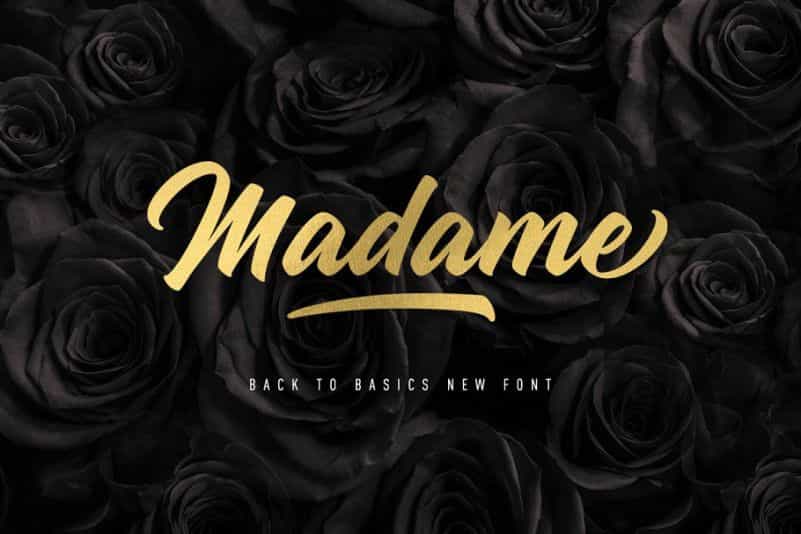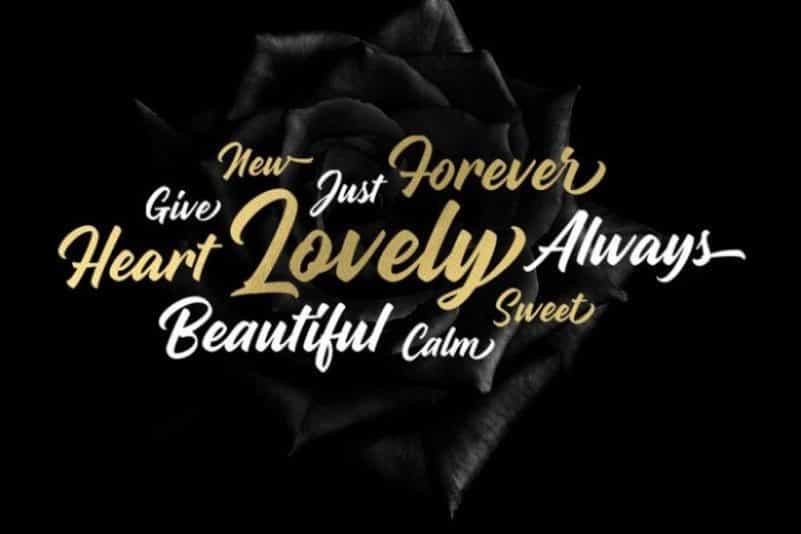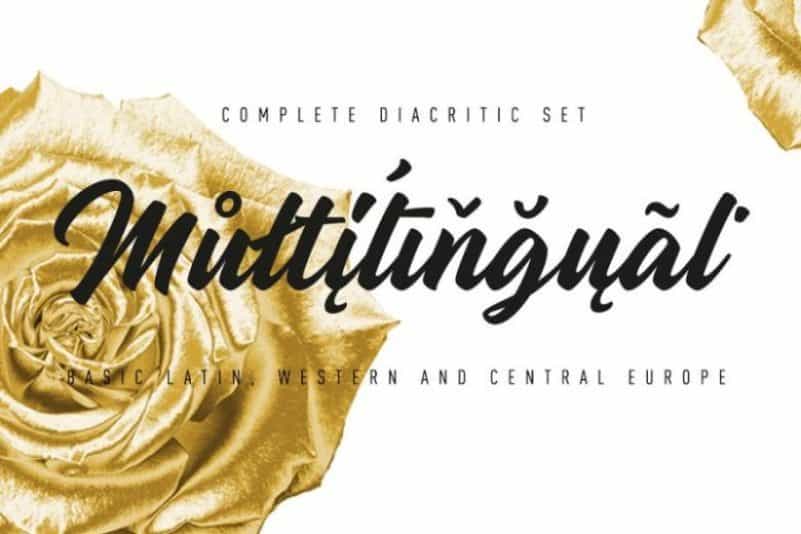
Madame is a calligraphy script typeface which looks very beautiful and is a font work done by hand. It’s will add more style and art to your design works. It is created and posted by Stereo Type. Madame Script is ideal for branding projects, logo, wedding designs, social media posts, advertisements, packaging designs, packaging labels, photography watermarks, invitations, stationery, and any project that requires the handwriting style.